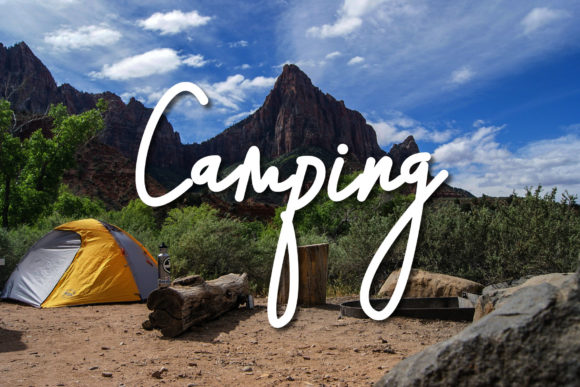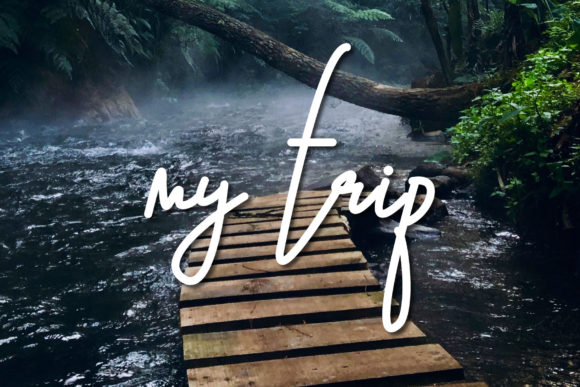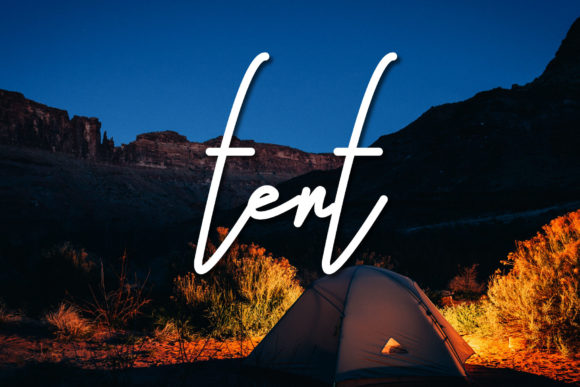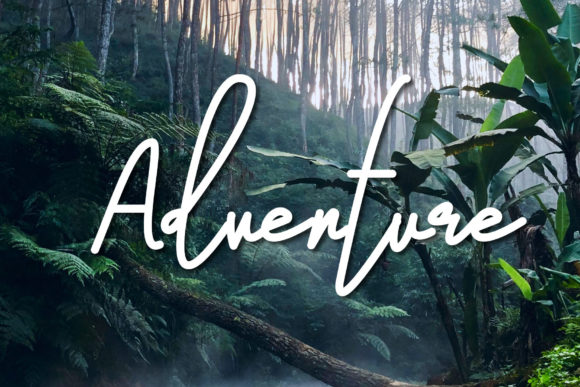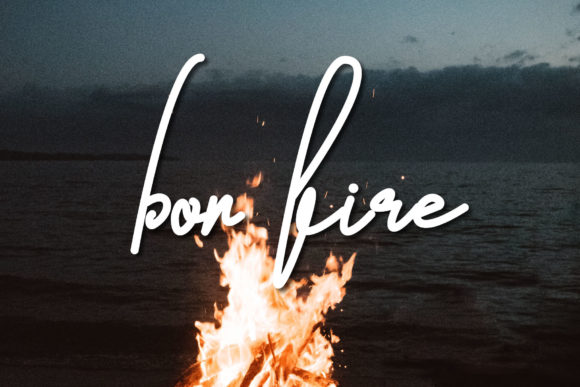
Camping Script Font
About Camping Script Font
Camping Script is a simple, cute and adaptable handwritten font. Whatever the topic, this font will be a wonderful asset to your font library, as it has the potential to enhance any creation.